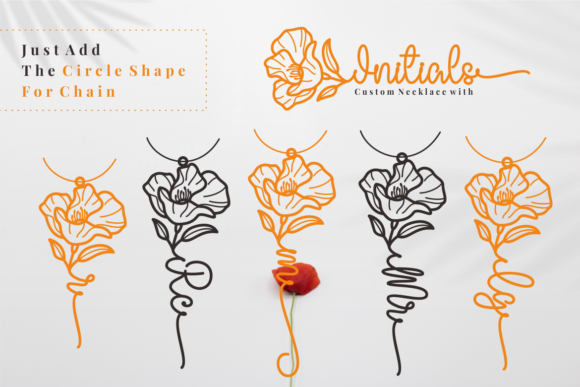
Githa Birth Flower Font
Githa Birth Flower is a vintage styled script font carefully created with a touch of elegance. Whether you’re looking for fonts for Instagram or calligraphy scripts for DIY projects, this font will turn any creative idea into a true piece of art!
August birth flower